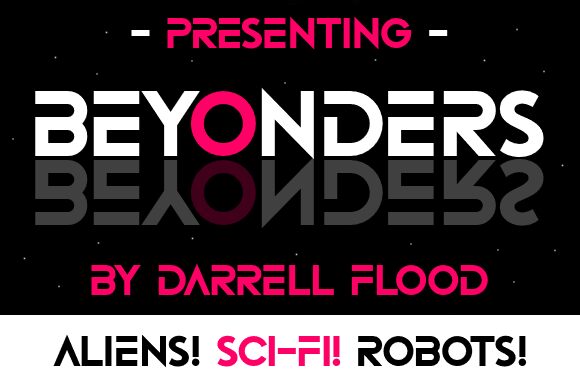
Beyonders Italic
Dive into the world of tomorrow with Beyonders Italic, a display font crafted by Hawtpixel that redefines the boundaries of typography. The Beyonders family welcomes its italic variant, a typographic gem with a futuristic flair that draws inspiration from interstellar realms and cutting-edge technology.
Beyonders Italic stands out as the perfect choice for projects that demand a touch of modernity and sophistication. Its sleek, forward-leaning characters embody motion and innovation, making it an ideal match for alien encounters, tech-themed ventures, electronic music branding, and dynamic visual content. With its stylish elegance and contemporary design, this font seamlessly integrates into daily applications while maintaining its otherworldly charm.
Step into the future with Beyonders Italic—a font not just designed to impress but to leave a lasting impact on your creative endeavors.